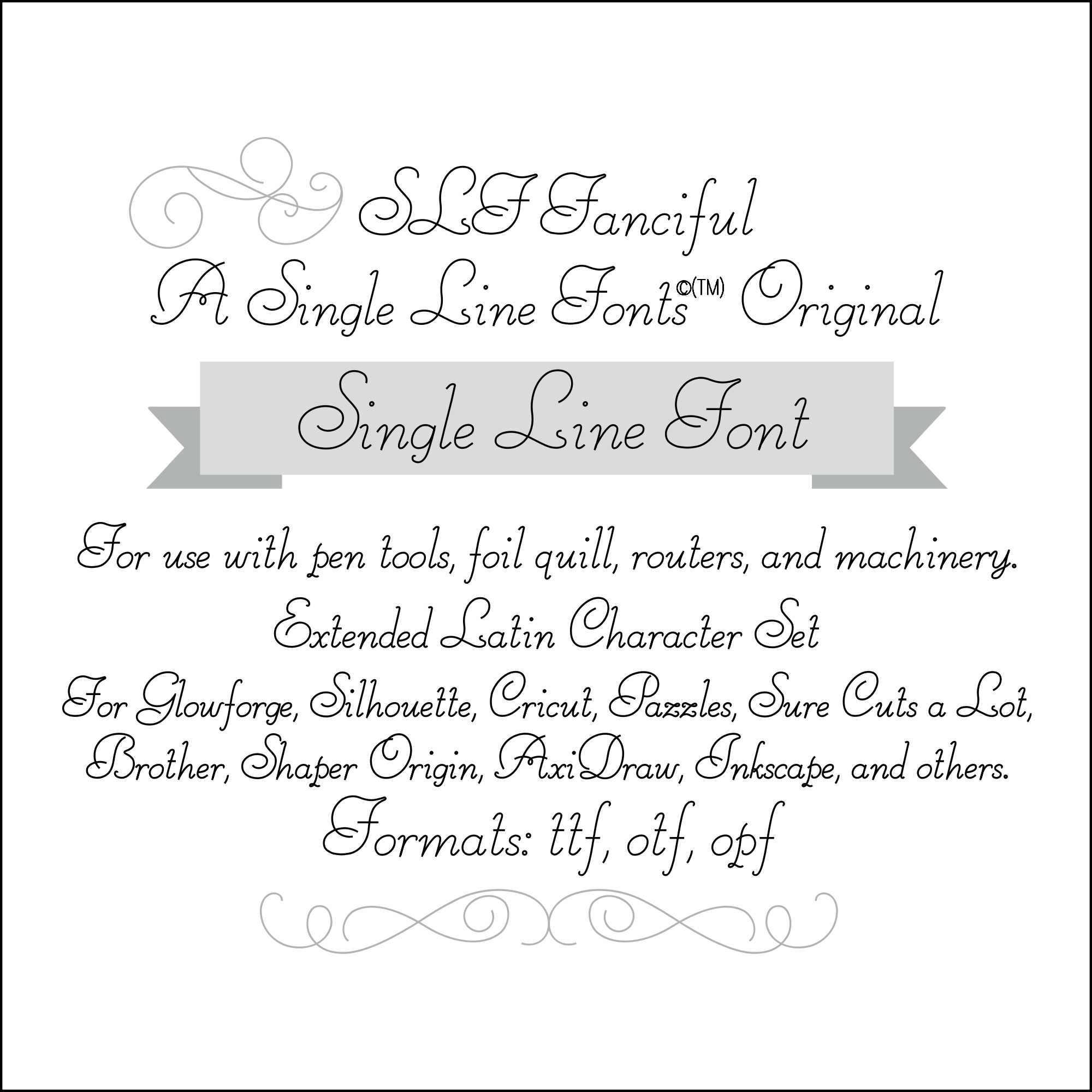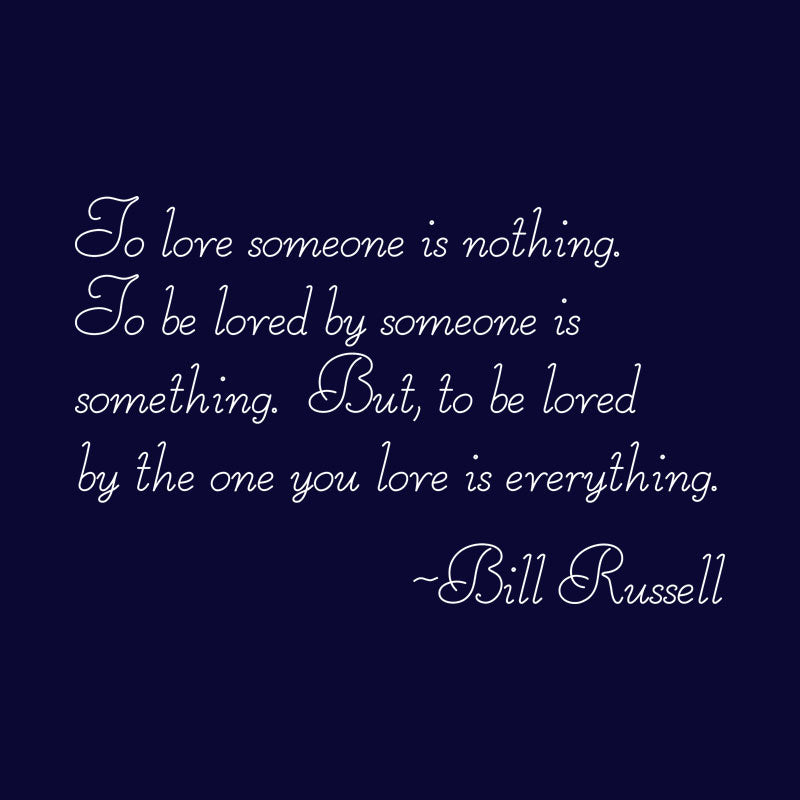
slf fanciful single line font with extended characters for danish and spanish languages
single line font slf fanciful example
Single Line Font "SLF Fanciful"
SLF Fanciful
Our newest font is SLF Fanciful, a flowing, slanted font with curved letter endings.  It's slanted but not cursive; a very unique way to add flair to your next foil quill or pen project.